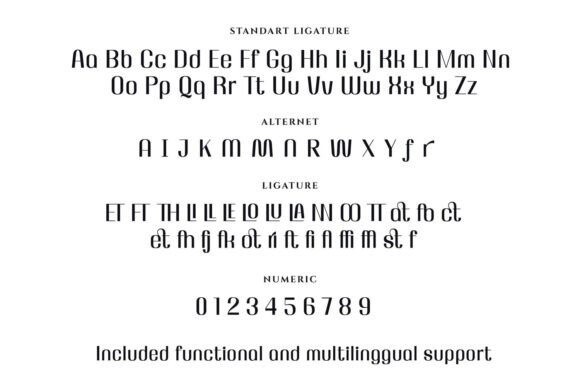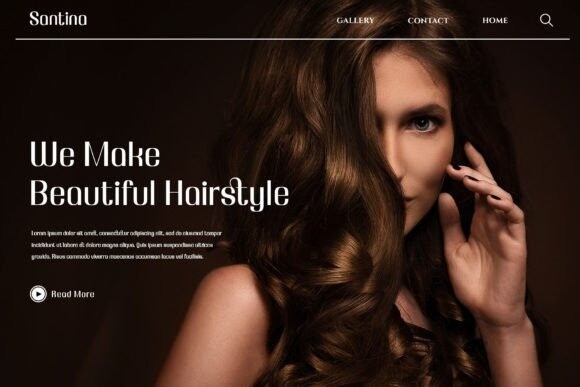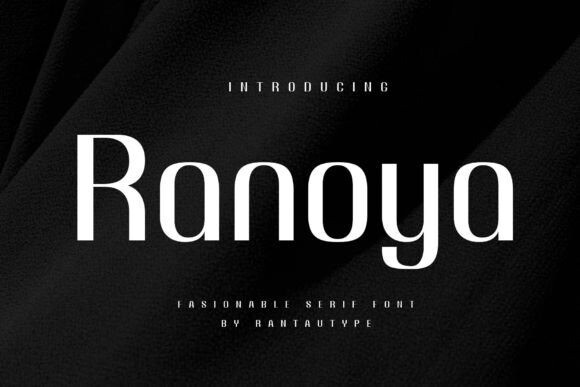
Ranoya Font
Designer: RantauType
Ranoya Font is a stylish and fashionable sans-serif font that embodies sophistication and elegance. With clean lines and subtle curves, it exudes a modern and minimalist vibe. Perfect for branding, editorial designs, and luxury products, Ranoya adds a touch of refinement and class to any project.